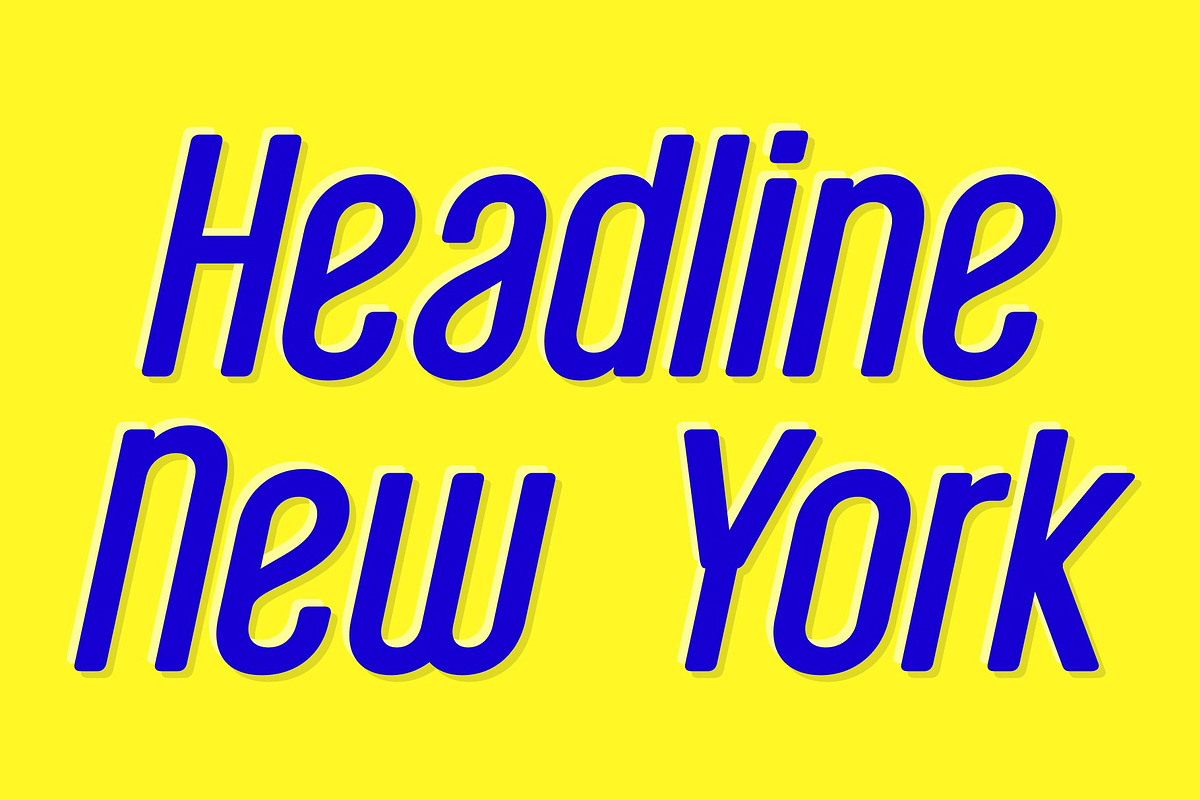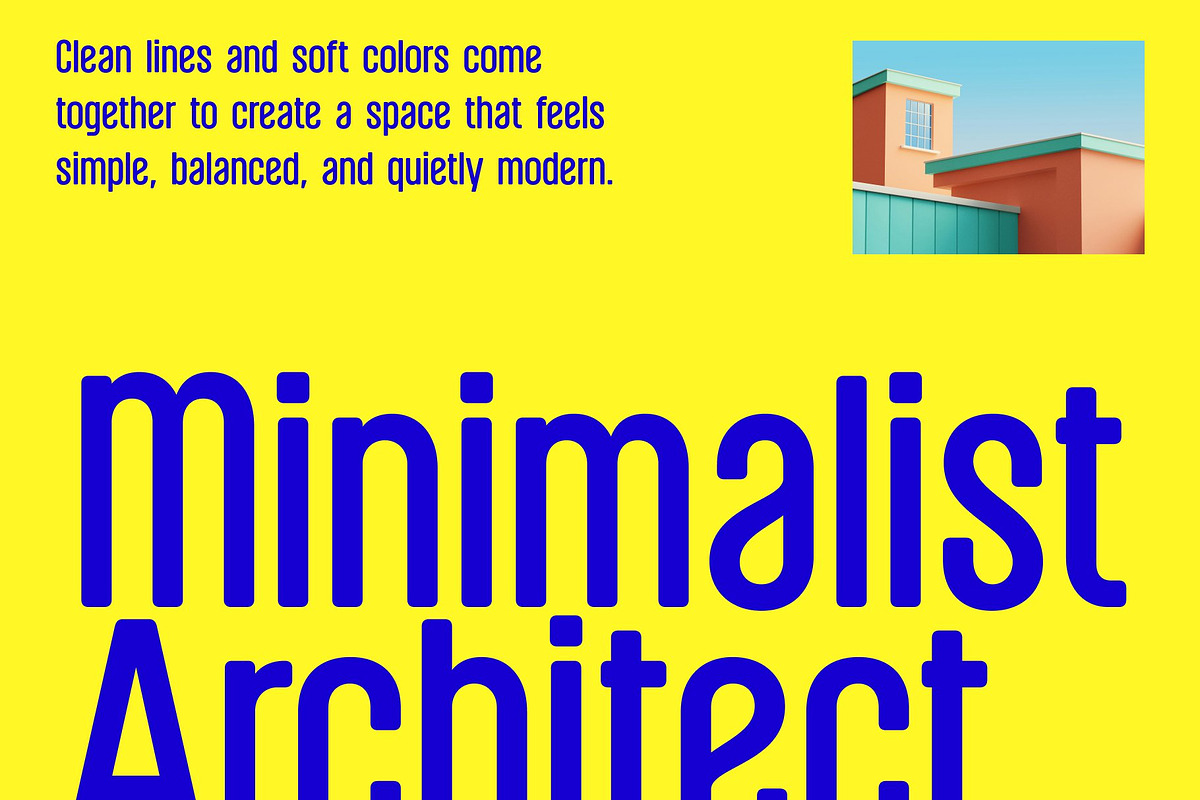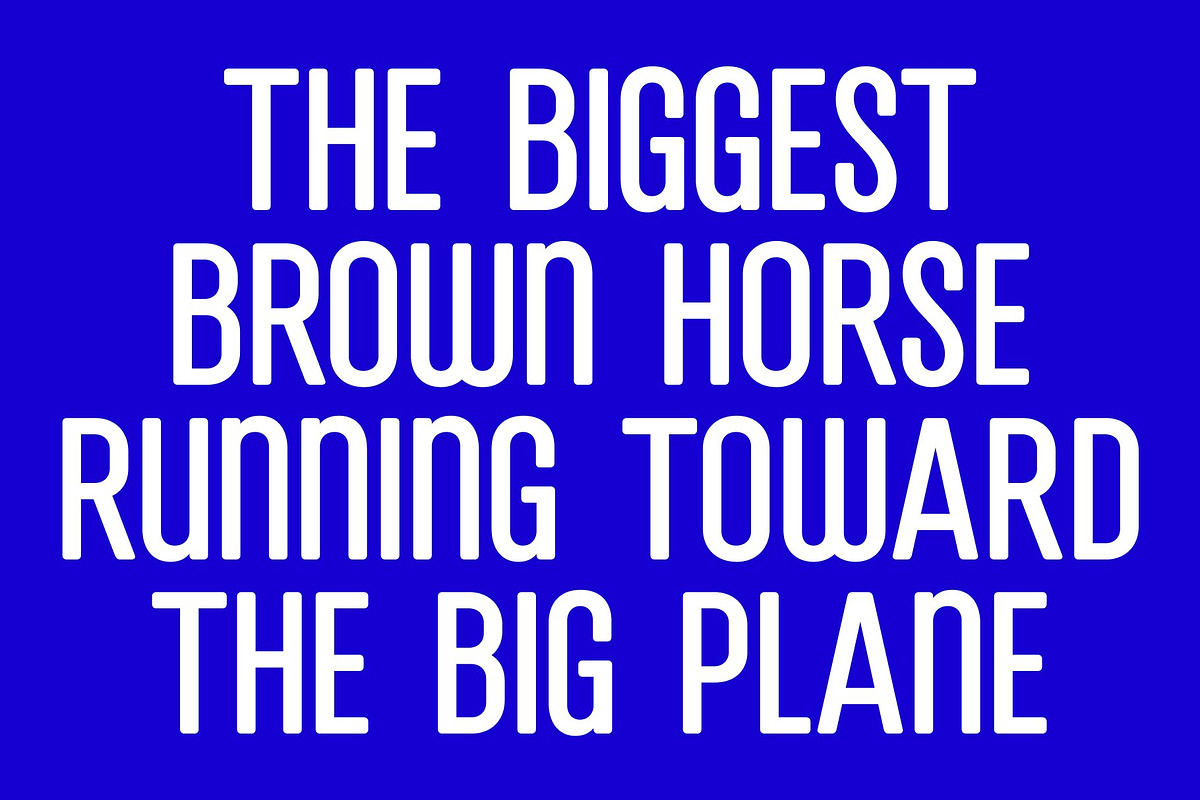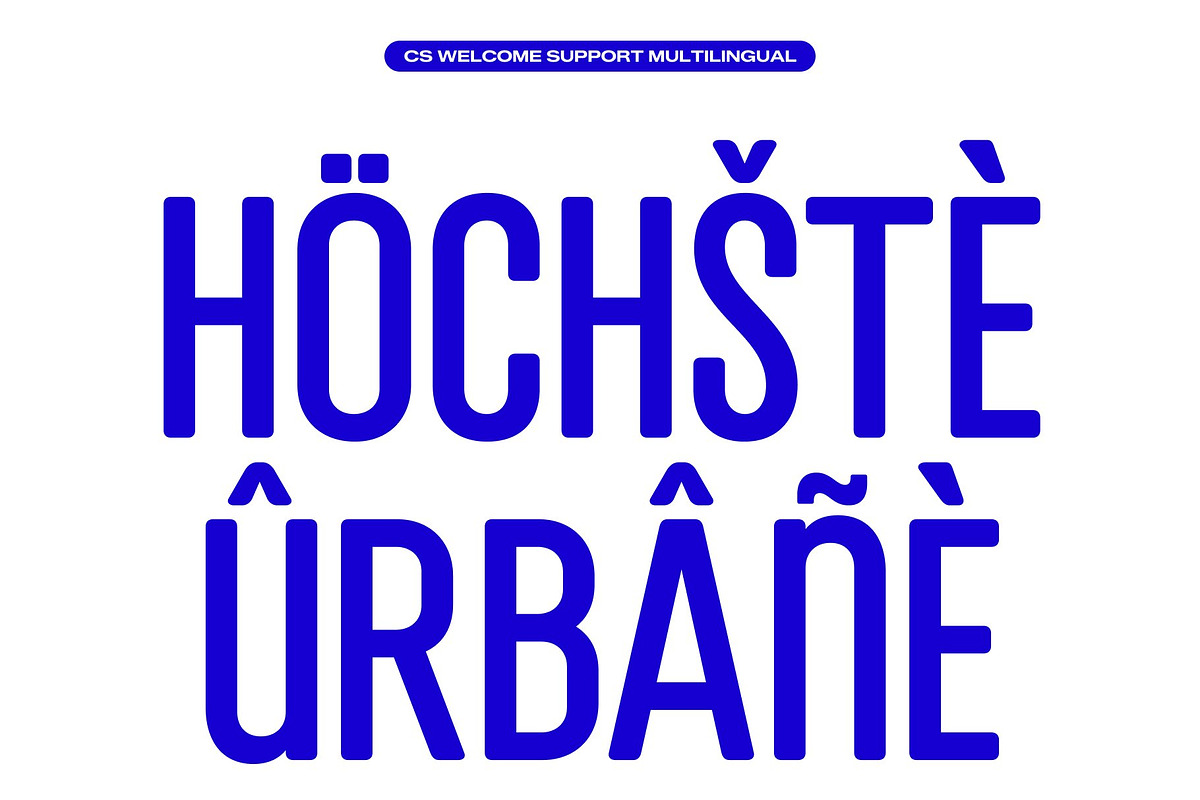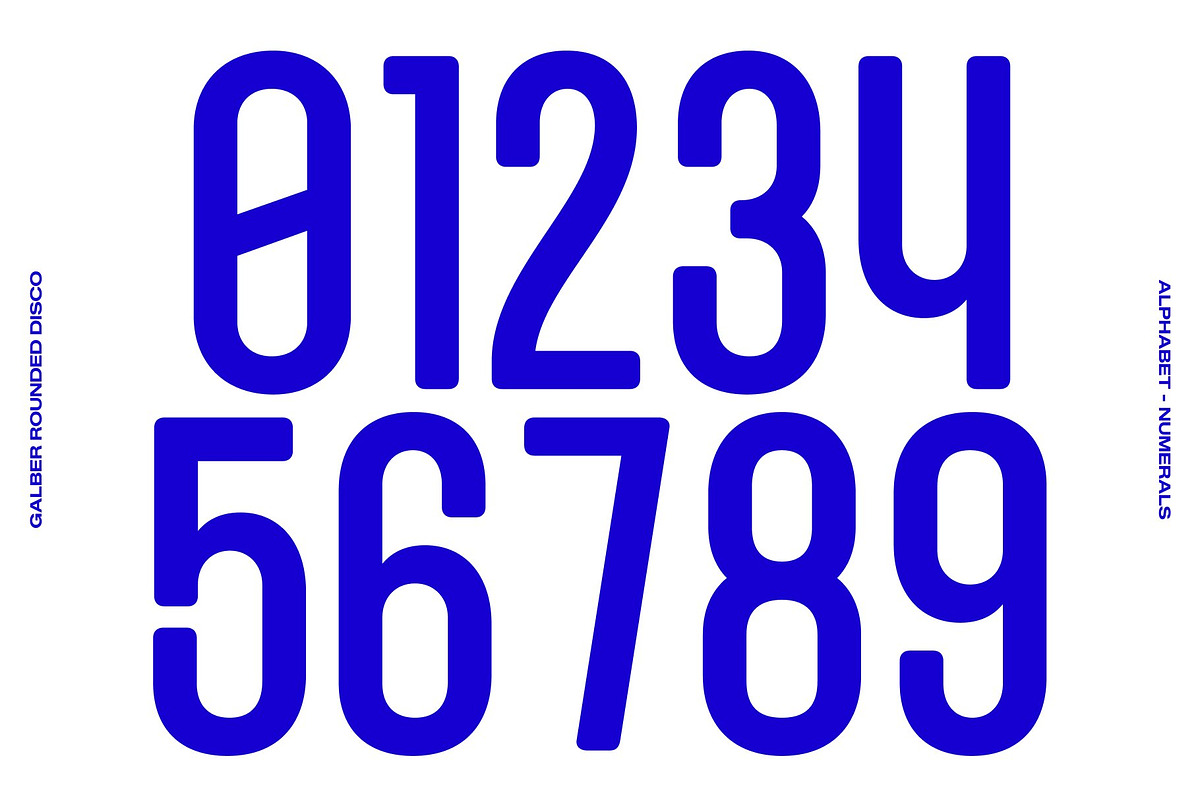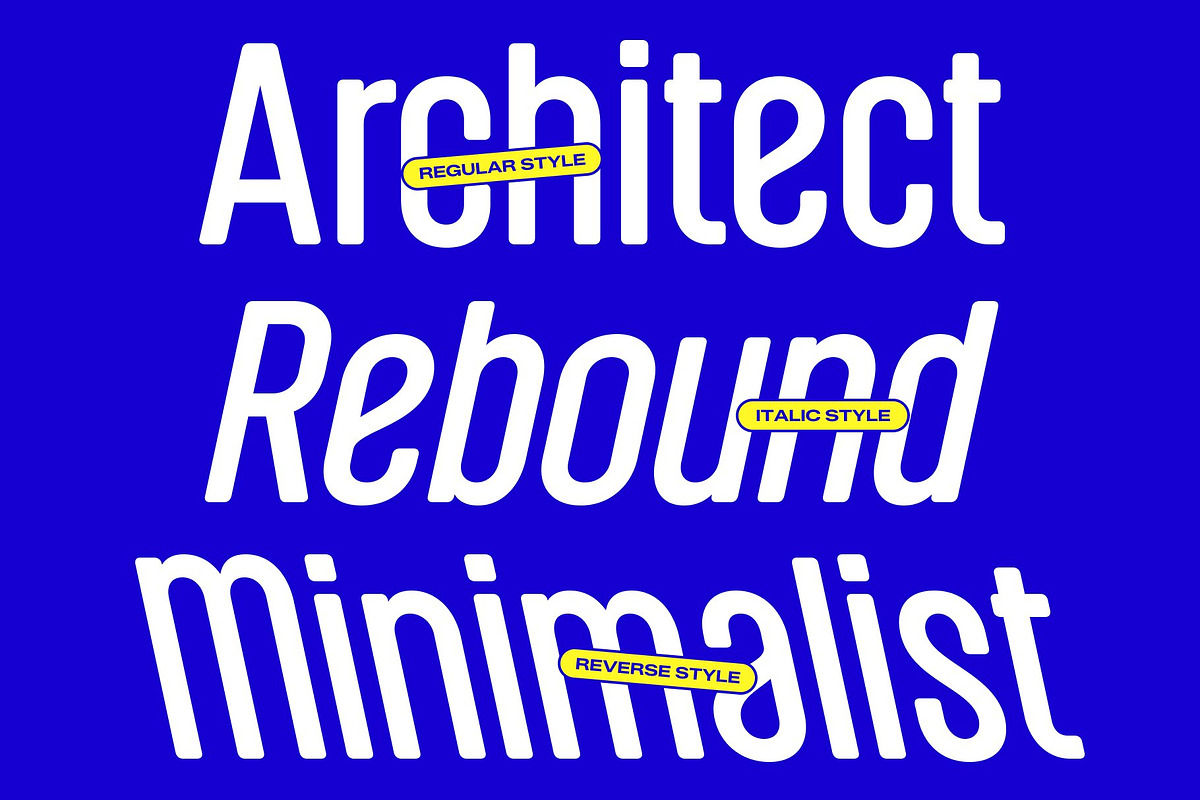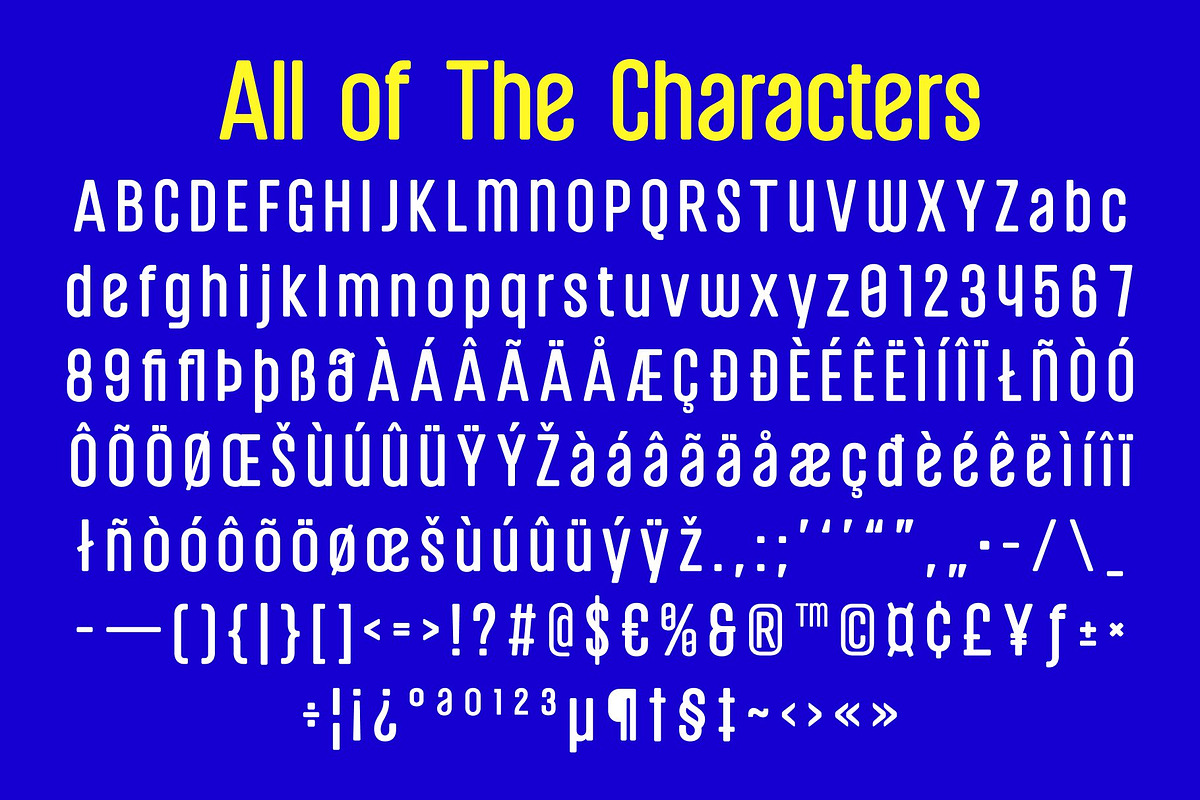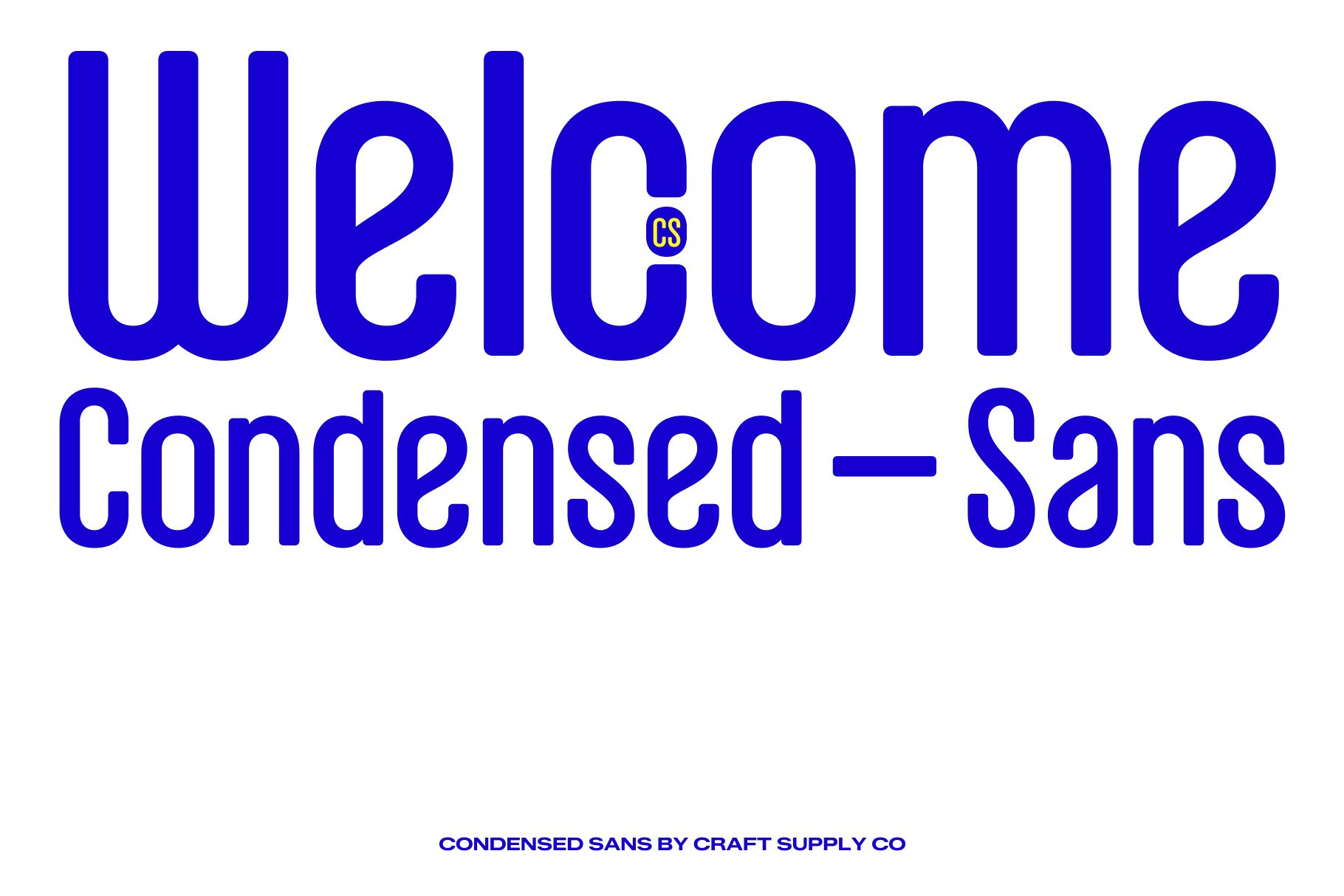
Welcome – Condensed Font
CS Welcome – Soft Condensed Sans Serif with Calm Modern Character
Soft Condensed Sans Serif with Minimalist Appeal This is a soft condensed sans serif font designed to bring warmth and clarity into modern typography. Its gentle character shapes and streamlined proportions create a calm visual tone that feels welcoming and approachable. This typeface blends minimalist aesthetics with contemporary design, making it an excellent choice for projects that value simplicity and elegance.
Compact Structure with Comfortable Readability The condensed construction allows text to fit neatly into tight spaces while maintaining a clear and open appearance. Each letterform is carefully balanced to ensure readability remains strong, even in headlines or dense layouts. This thoughtful structure allows designers to communicate messages efficiently without sacrificing visual comfort.
Gentle Shapes with Modern Simplicity This font stands out through its soft curves and smooth forms that create a friendly and relaxed personality. The subtle softness reduces visual tension and gives text a peaceful rhythm, helping designs feel inviting and harmonious. This gentle approach makes the font especially suitable for brands and visuals that want to appear calm, modern, and trustworthy.
Perfect for Branding, Headlines, and Clean Visual Systems From posters and branding to editorial headlines and digital design, this font adapts beautifully to a wide range of creative applications. Its combination of readability, minimalist structure, and soft modern character ensures your designs feel fresh, approachable, and effortlessly contemporary.